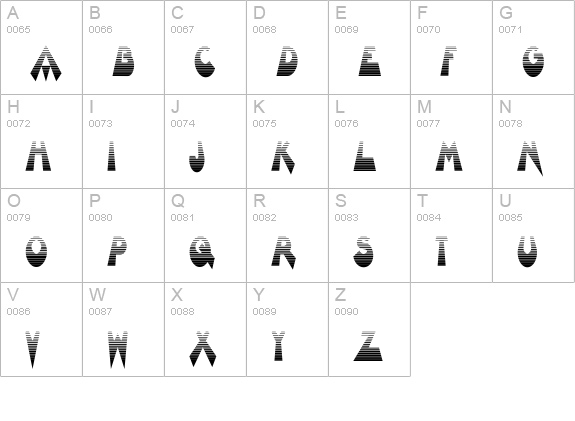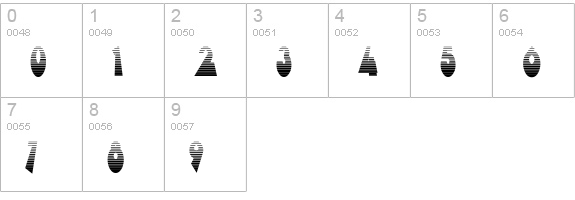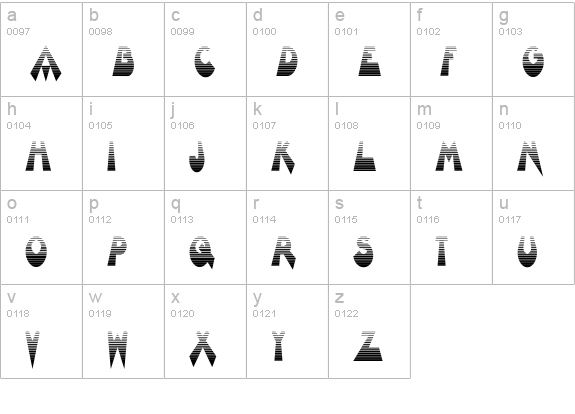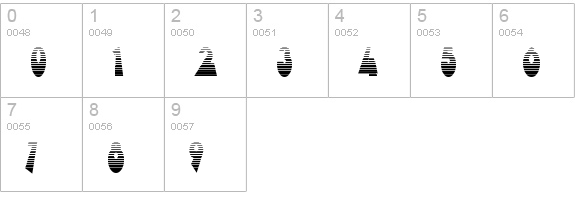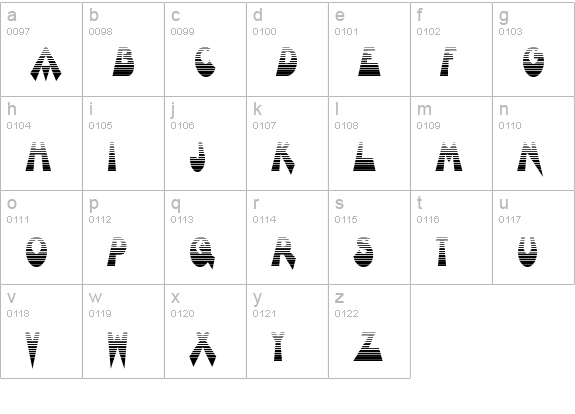
Barnroof Font Details
Barnroof font is a charming and rustic typeface that captures the essence of vintage signage and country living. With its bold and rugged letterforms, this font is perfect for adding a touch of nostalgia and authenticity to your design projects. Inspired by the classic barn roofs found in rural landscapes, Barnroof font brings a sense of warmth and simplicity to your typography. Its unique and handcrafted style evokes a feeling of tradition and craftsmanship, making it an ideal choice for projects that require a touch of vintage flair. Not only does Barnroof font offer a stunning visual appeal, but it also provides versatility and ease of use. Whether you're designing logos, posters, signage, or even social media graphics, this font will effortlessly elevate your designs and make them stand out from the crowd. And the best part? Barnroof font is available for free download at FontsMarket.com. That's right, you can enjoy all the charm and character of this beautiful font without spending a dime. Simply head over to FontsMarket.com and start incorporating Barnroof font into your creative endeavors today. So if you're looking for a font that embodies the rustic charm of barn roofs and the simplicity of country living, look no further than Barnroof font. Download it for free at FontsMarket.com and let your designs radiate with timeless beauty and nostalgia.